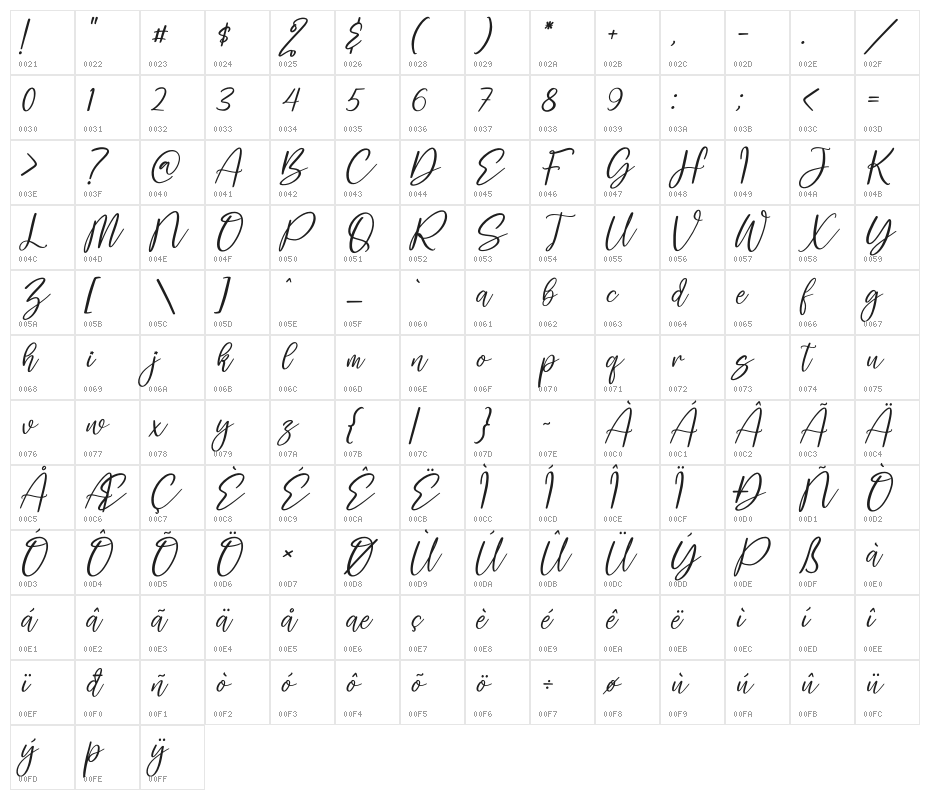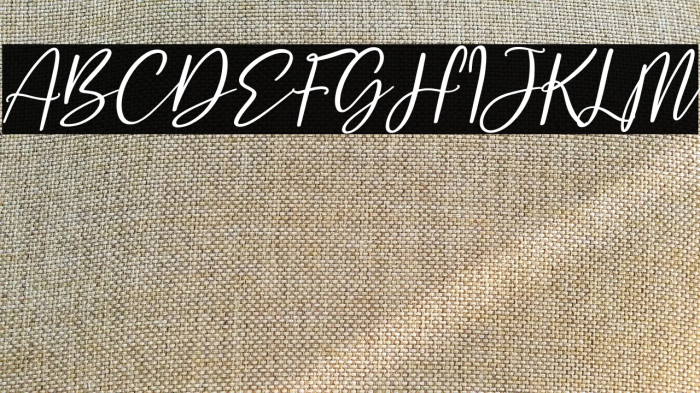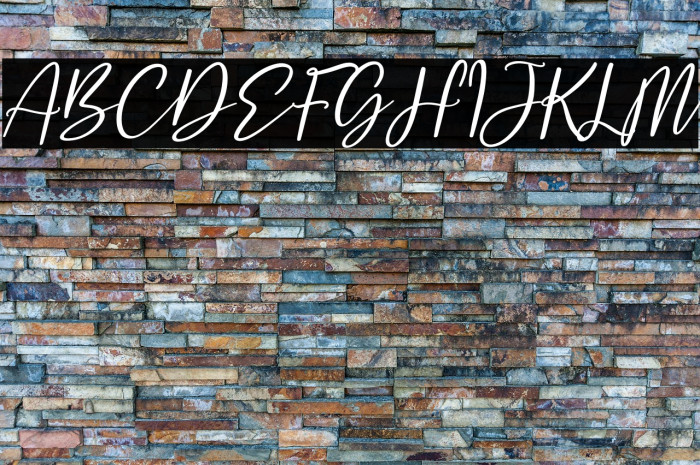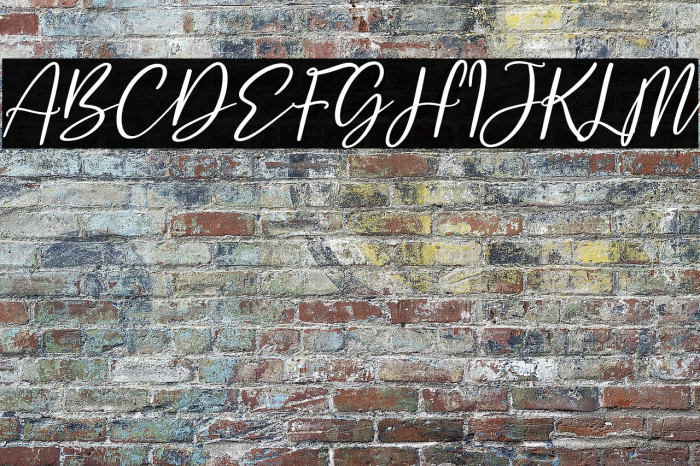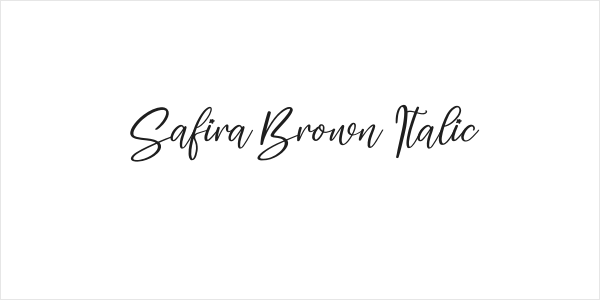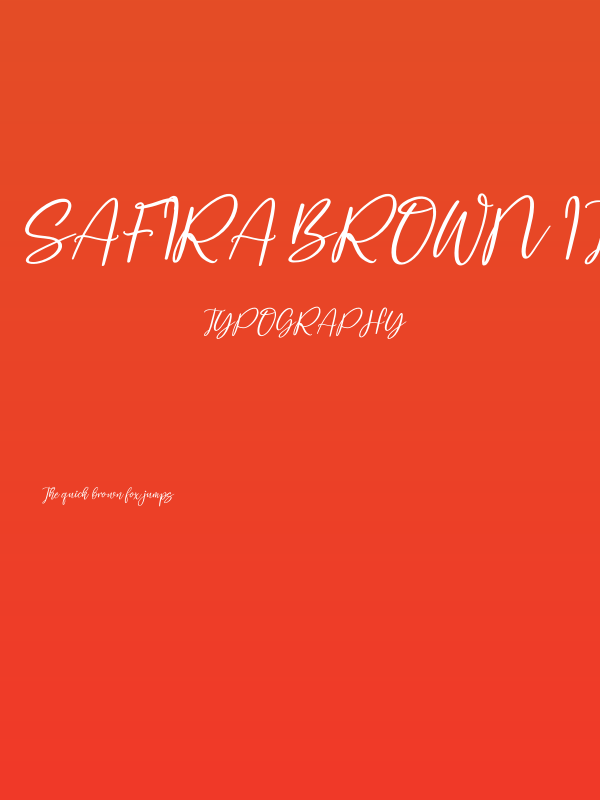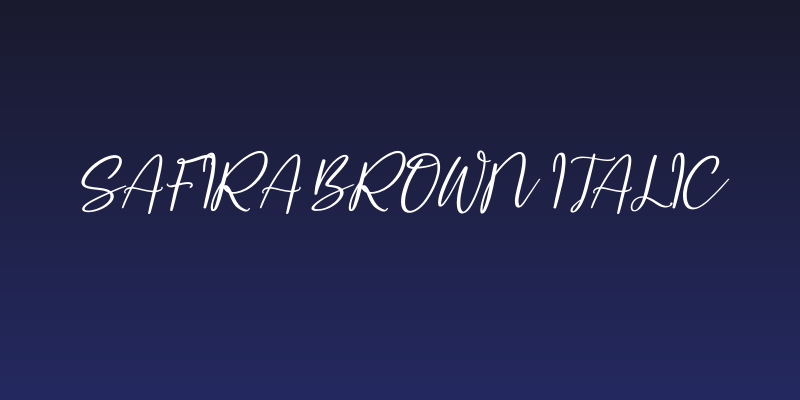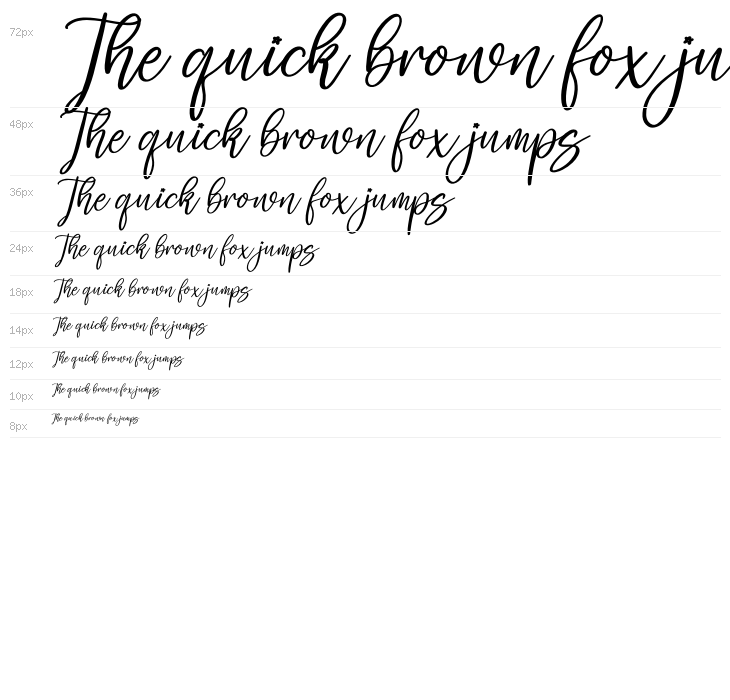
Safira Brown Italic Font
Safira Brown Italic Description
This font exudes a graceful and flowing style, characterized by its elegant cursive script. The letters are interconnected with smooth, sweeping strokes that give it a handwritten appearance. The uppercase letters are slightly more elaborate, with extended loops and flourishes, while the lowercase letters maintain a consistent rhythm and flow. The numerals are clear and legible, maintaining the same cursive style. Special characters are designed to complement the overall aesthetic, with each symbol crafted to blend seamlessly with the letters. The font's italic nature adds a dynamic and sophisticated touch, making it suitable for a variety of creative applications.
| Overall Style | Elegant, Handwritten |
| Use Case | Logos, Invitations, Personal stationery |
| Proposed Projects | Ideal for wedding invitations, greeting cards, elegant branding, and personal stationery. |